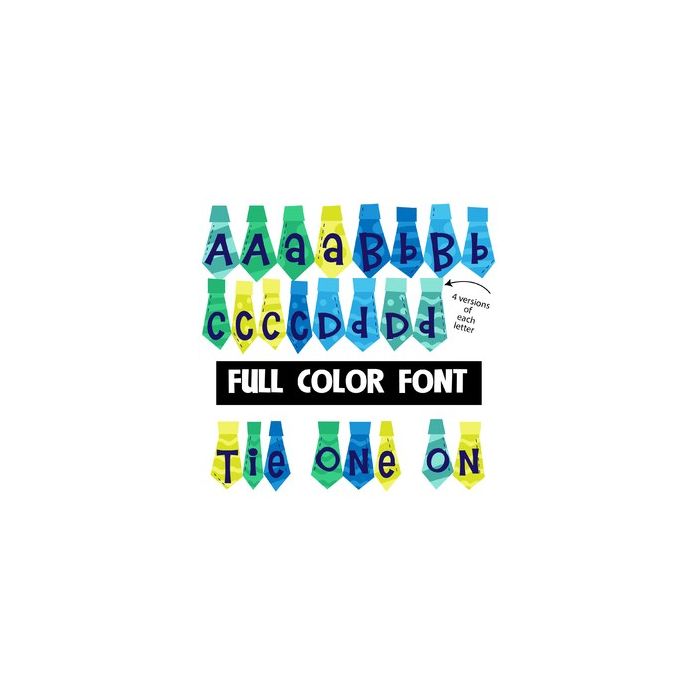
This full-color font features letters on neckties. There is a full upper and lowercase alternate version that you can access through Silhouette's glyph map.